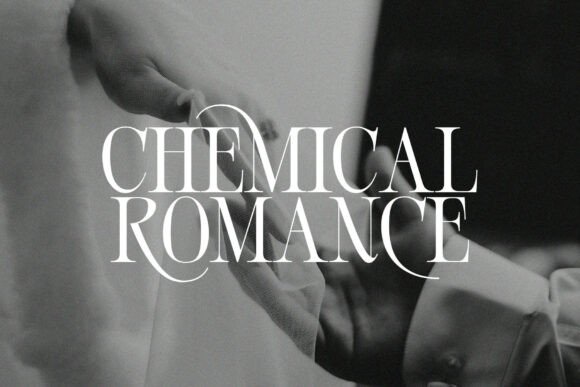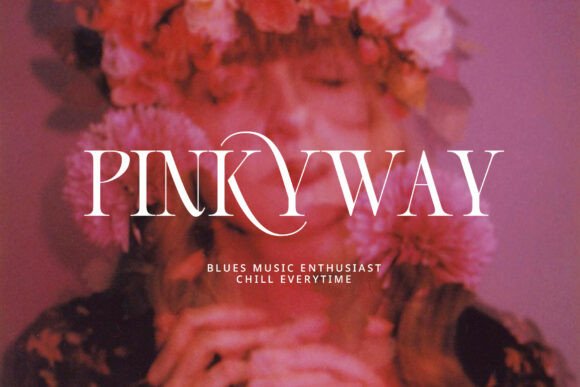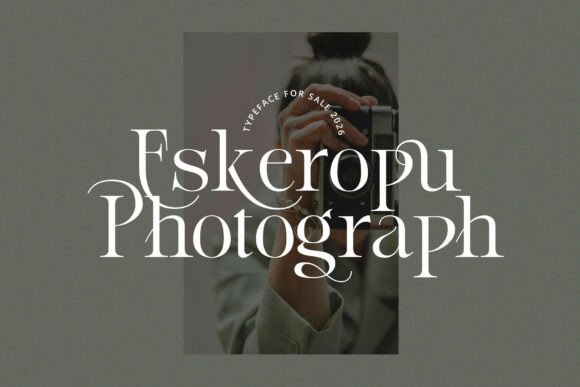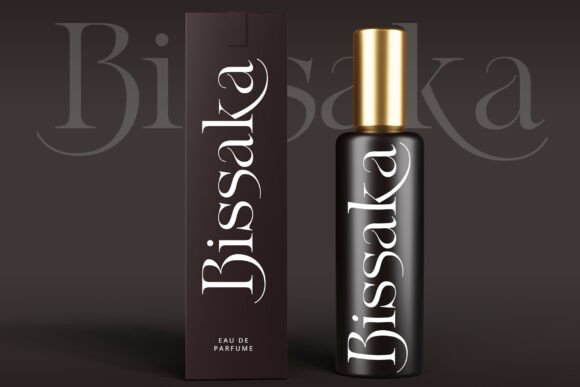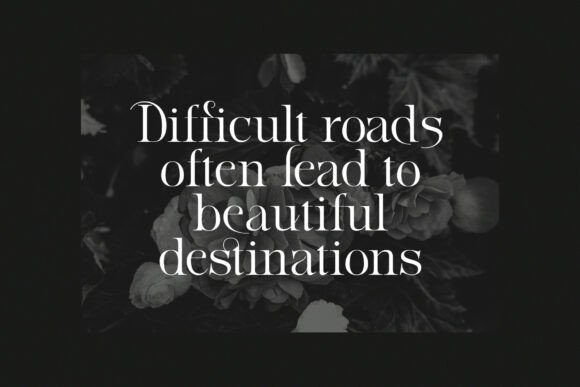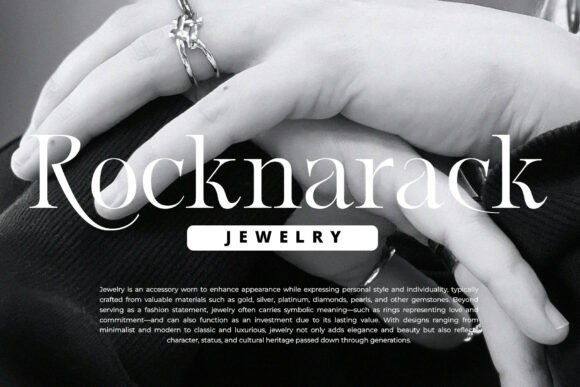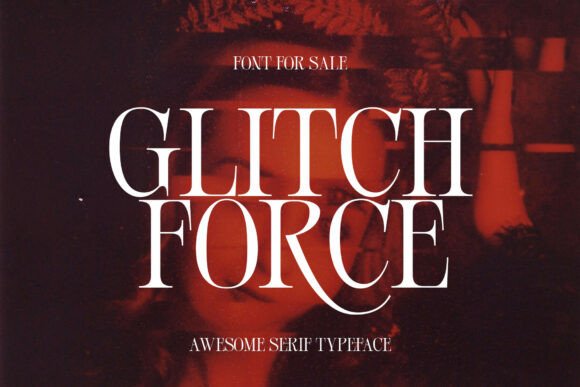
Discover the Timeless Elegance of Glitch Force Font
In the world of typography, few fonts have managed to capture the essence of classic elegance and formality as effectively as Glitch Force. This sophisticated font has been a staple in the design industry for its unique ability to guide the eye seamlessly from one letter to another, making it a favorite among designers and crafters alike. In this article, we’ll delve into the characteristics that make Glitch Force a go-to choice for projects requiring a touch of refinement and poise.
The Characteristics of Glitch Force Font
Glitch Force is known as a font with a classic, elegant, and formal look. Its design is rooted in traditional typography, featuring clean lines, precise letterforms, and a balanced structure. These characteristics make it an ideal choice for long-form texts, such as books, newspapers, and magazines, where readability is paramount. The font’s classic appearance also lends itself well to various design applications, including branding, advertising, and packaging.
Readability and Versatility
Because its shape helps guide the eye from one letter to another, Glitch Force is often considered more comfortable to read in long texts, especially in print media such as books and newspapers. This is particularly important for designers and crafters working on projects that require a high level of legibility, such as editorial design, publishing, and educational materials. Additionally, Glitch Force’s versatility allows it to be used in a range of contexts, from digital media to signage and display applications.
Design Applications and Inspiration
Glitch Force’s timeless elegance makes it an excellent choice for a wide range of design projects. For instance, it can be used to create sophisticated branding materials, such as logos, business cards, and letterheads. The font’s classic look also lends itself well to advertising and marketing materials, including billboards, posters, and flyers. Moreover, Glitch Force can add a touch of refinement to digital media, such as e-books, blogs, and websites.
Crafting with Glitch Force
Crafters and DIY enthusiasts can also benefit from using Glitch Force in their projects. For example, the font can be used to create beautiful hand-lettered signs, banners, and posters. Additionally, Glitch Force can be incorporated into various craft projects, such as card making, scrapbooking, and mixed media art. The font’s elegant appearance can add a touch of sophistication to any craft project, making it perfect for special occasions and events.
Tips for Using Glitch Force Effectively
- Use Glitch Force for body text: The font’s readability and elegance make it perfect for long-form text.
- Experiment with font sizes: Glitch Force can be used at a range of font sizes, from small body text to large display headings.
- Pair with complementary fonts: Glitch Force can be paired with other fonts to create visually appealing combinations.
- Pay attention to kerning: Adjusting the kerning between letters can enhance the overall appearance of the text.
Glitch Force is a versatile and elegant font that offers a timeless solution for designers and crafters seeking to add a touch of sophistication to their projects. Its classic appearance, readability, and versatility make it an excellent choice for a wide range of applications, from print media to digital design and crafting. By incorporating Glitch Force into your design toolkit, you’ll be able to create beautiful, professional-looking projects that exude elegance and refinement.